Skyrise Architects
Sustainable, innovative, and customized architectural excellence.
Skyrise Architects is a creative company that creates attractive, earth-friendly constructions. They provide services for planning, designing, and managing the construction of dream places that are as good for the environment as they are for the people who live in them.
Skyrise Architects creates buildings that uniquely reflect our architectural expertise by keeping things simple and traditional while creating attractive and useful designs. We focus on reliable and classic looks, as we are aware that this is what benefits both our customers and the environment.
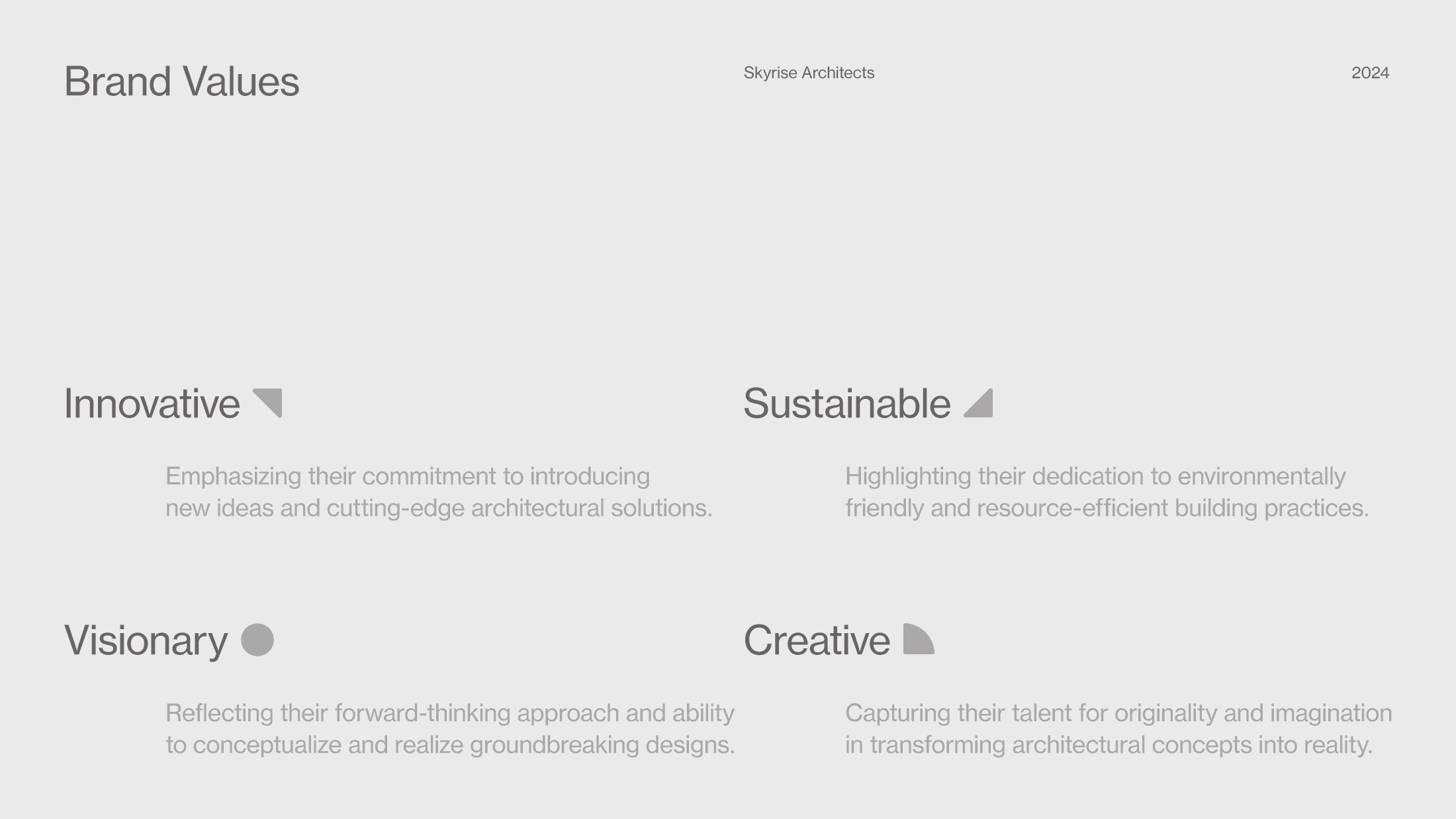
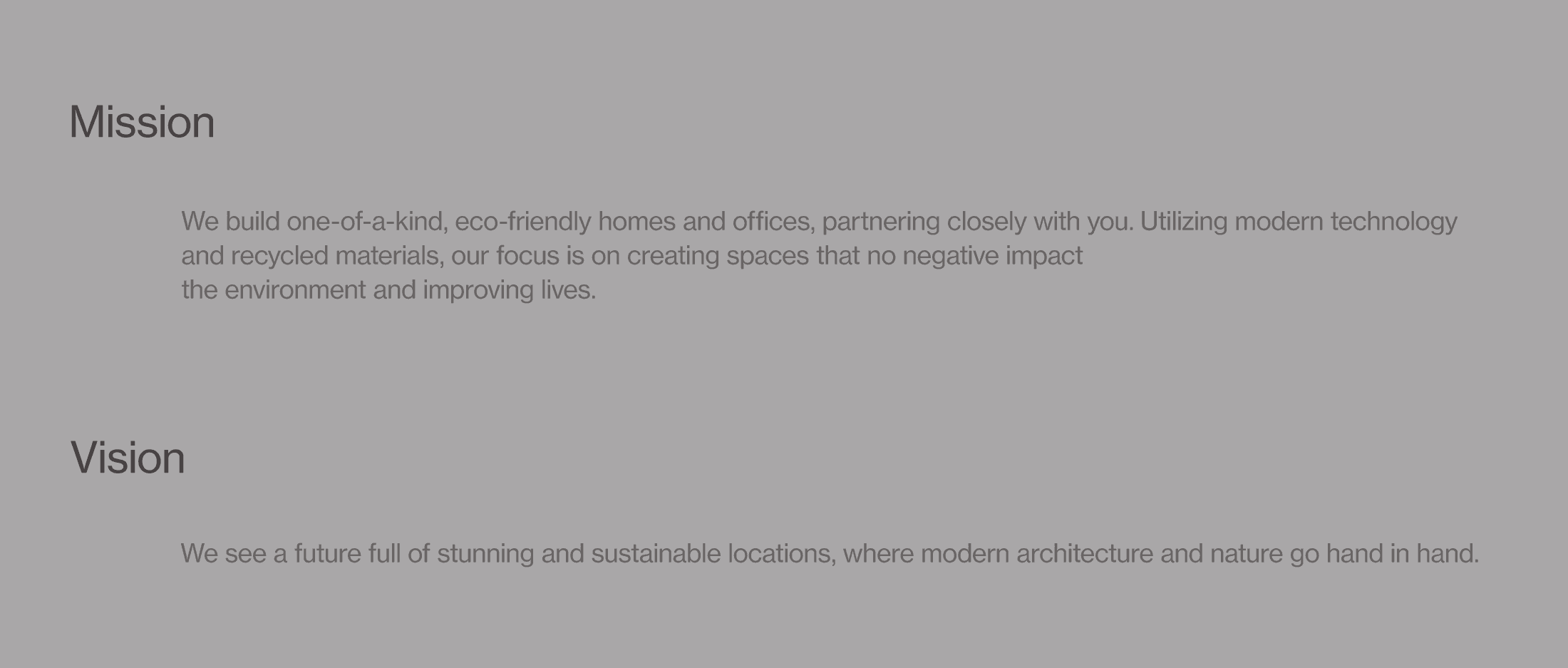
The Logo
For the logo, we chose a simple triangle and a circle because they're the building blocks of all designs. From these, we creatively crafted the letter "S" in the negative space. The mark was then fitted into a square to complete the logo mark. Alongside, we developed a custom wordmark that seamlessly matches our logo. This wordmark effectively conveys Skyrise Architects' commitment to simplicity, elegance, and innovation in every detail.
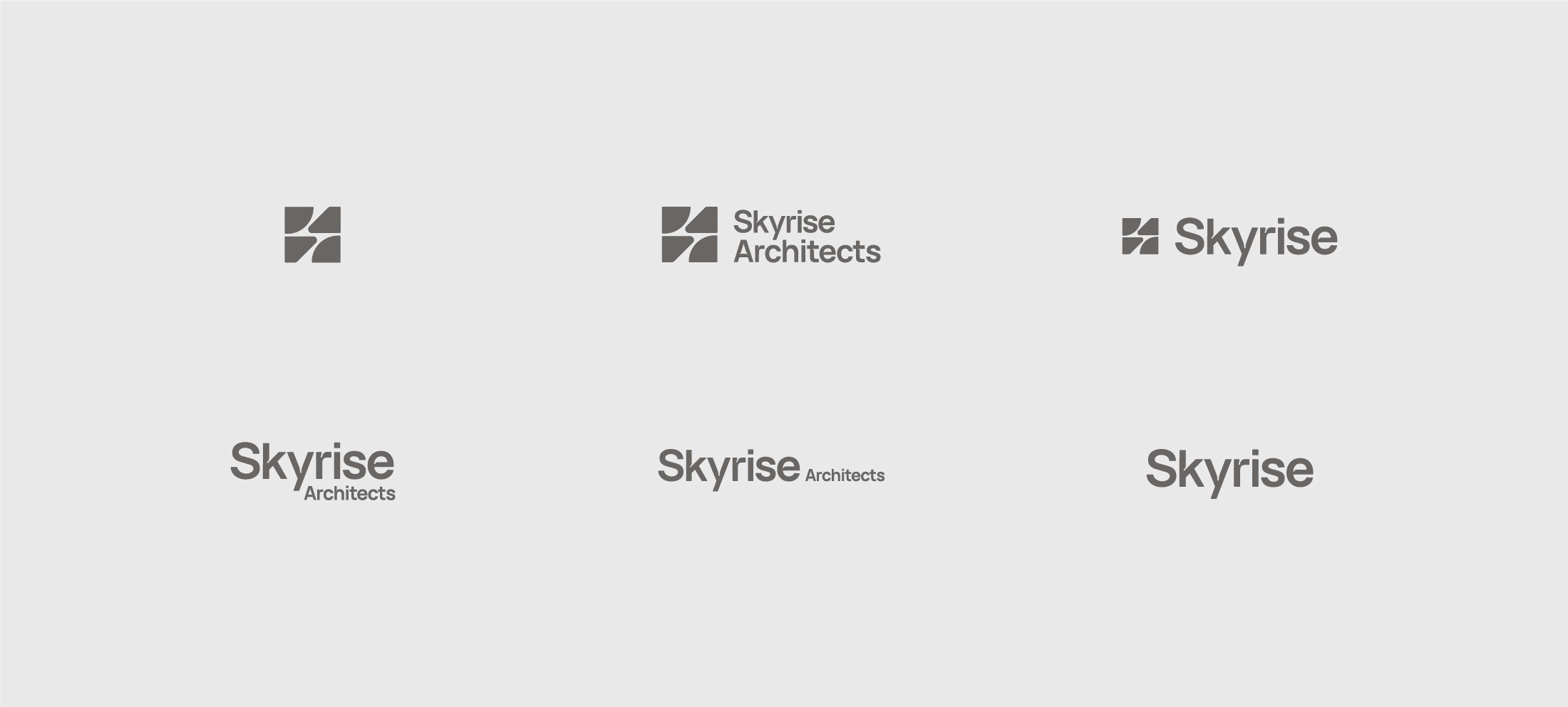
Colors & Typography
We chose earthy tones to highlight Skyrise Architects' dedication to being eco-friendly. The shades of white and gray (Platinum) mirror the color of concrete, while dark brown (Raisin Black) resonates with the earth itself. We added a pop of yellow (xanthous) as our accent color to create a warm, inviting feel reminiscent of sunlight, a crucial element in any architectural design.
Our chosen font, Neue Haas Grotesk Text Pro, brings a clean, modern vibe to our brand. It's a sans-serif font that speaks to our sleek, contemporary style, ensuring our messages are clear, versatile, and distinctly Skyrise.